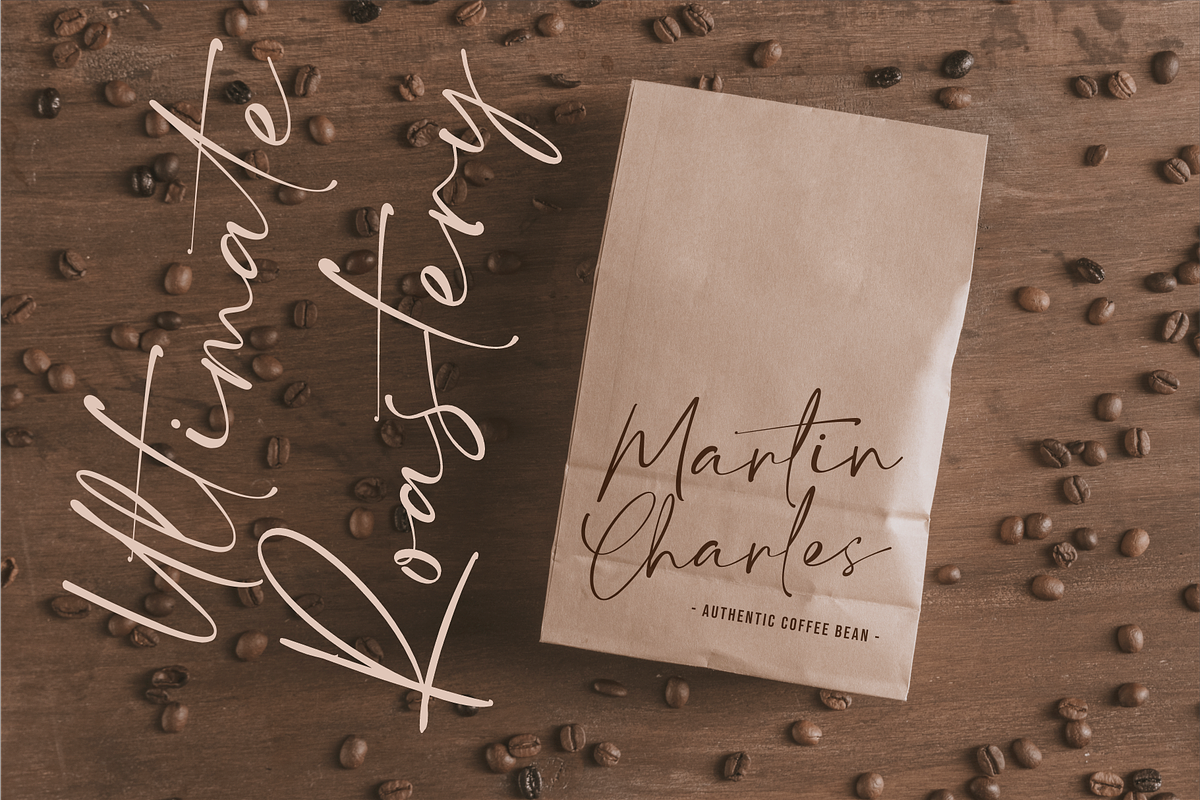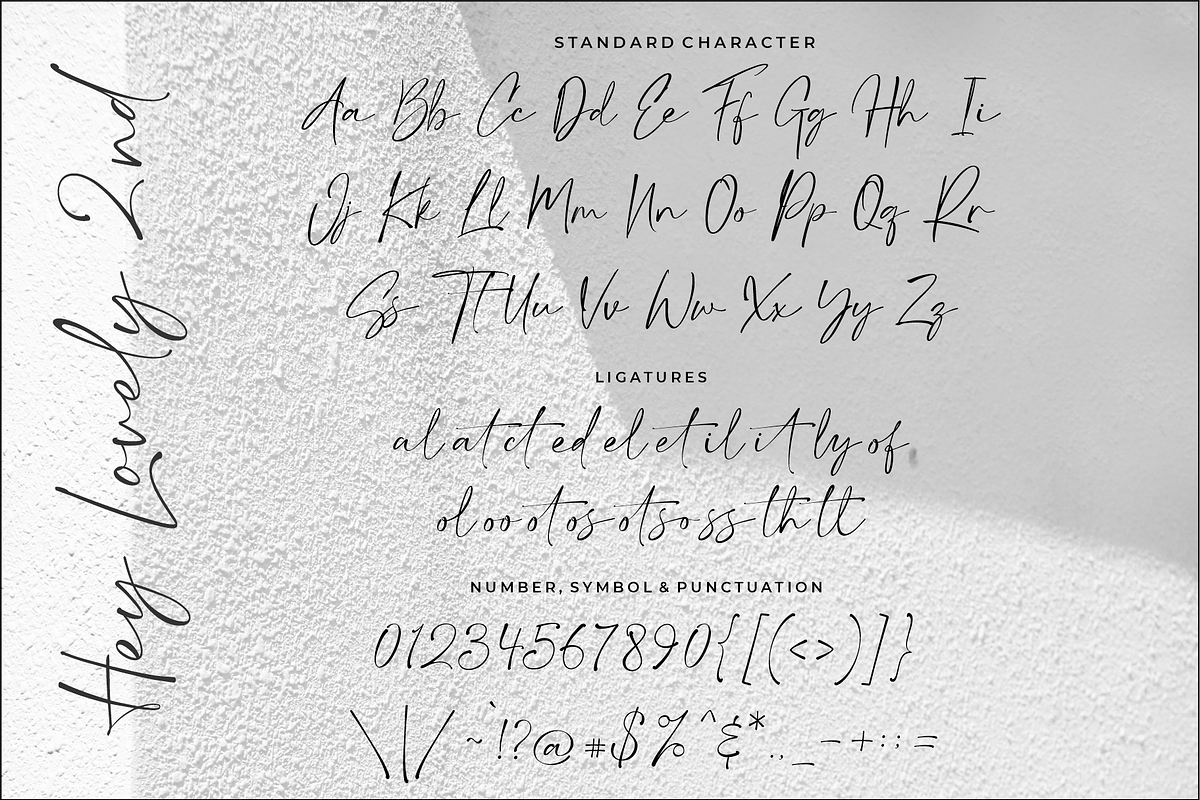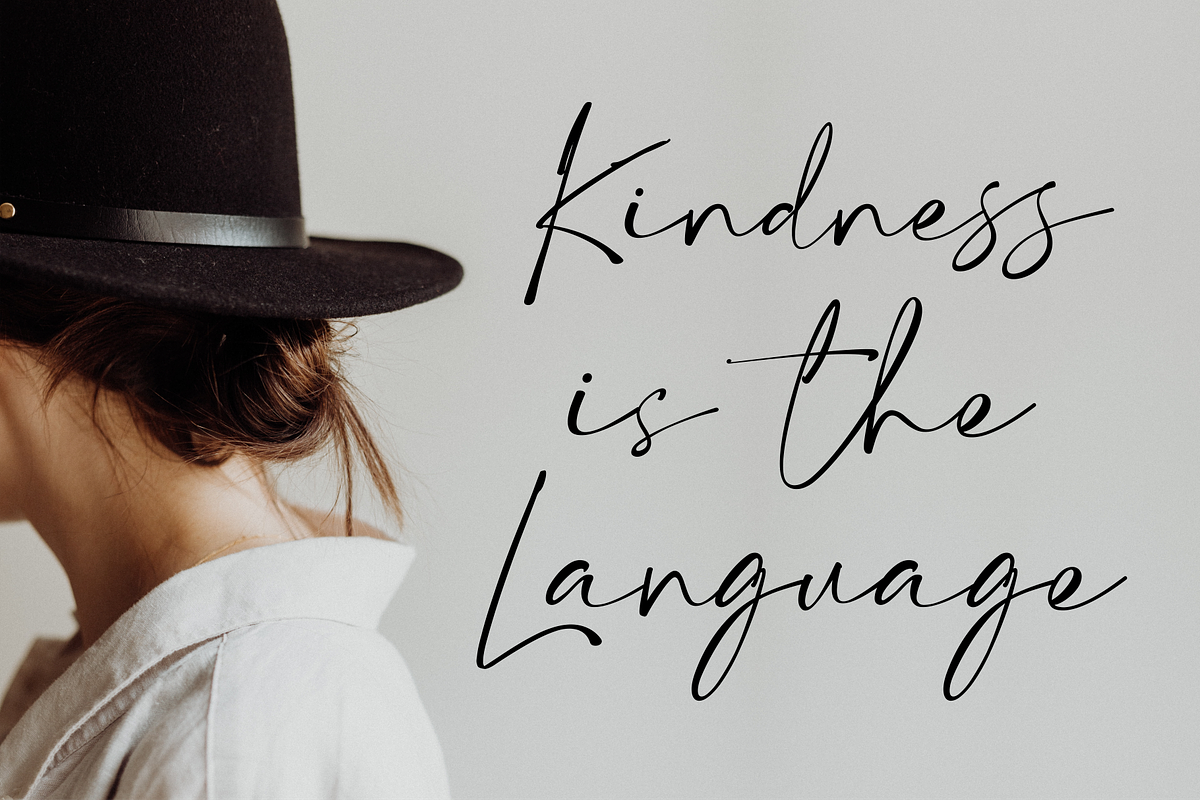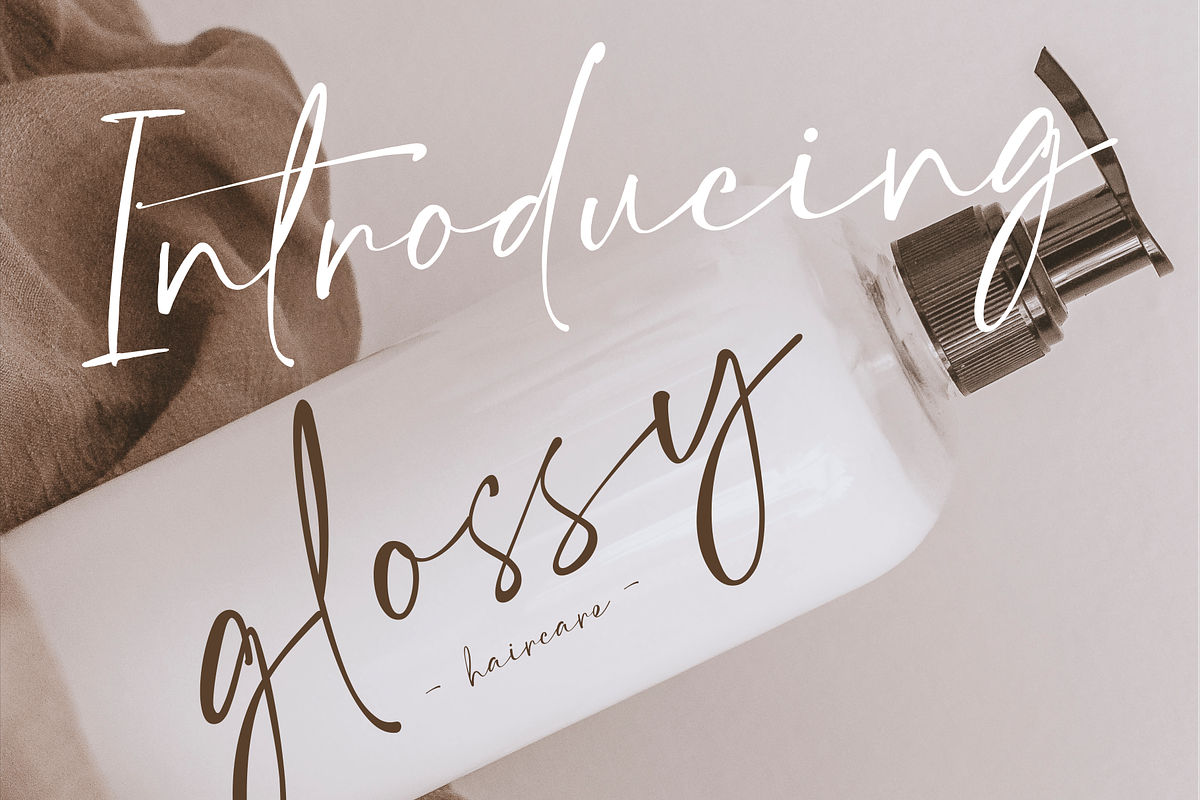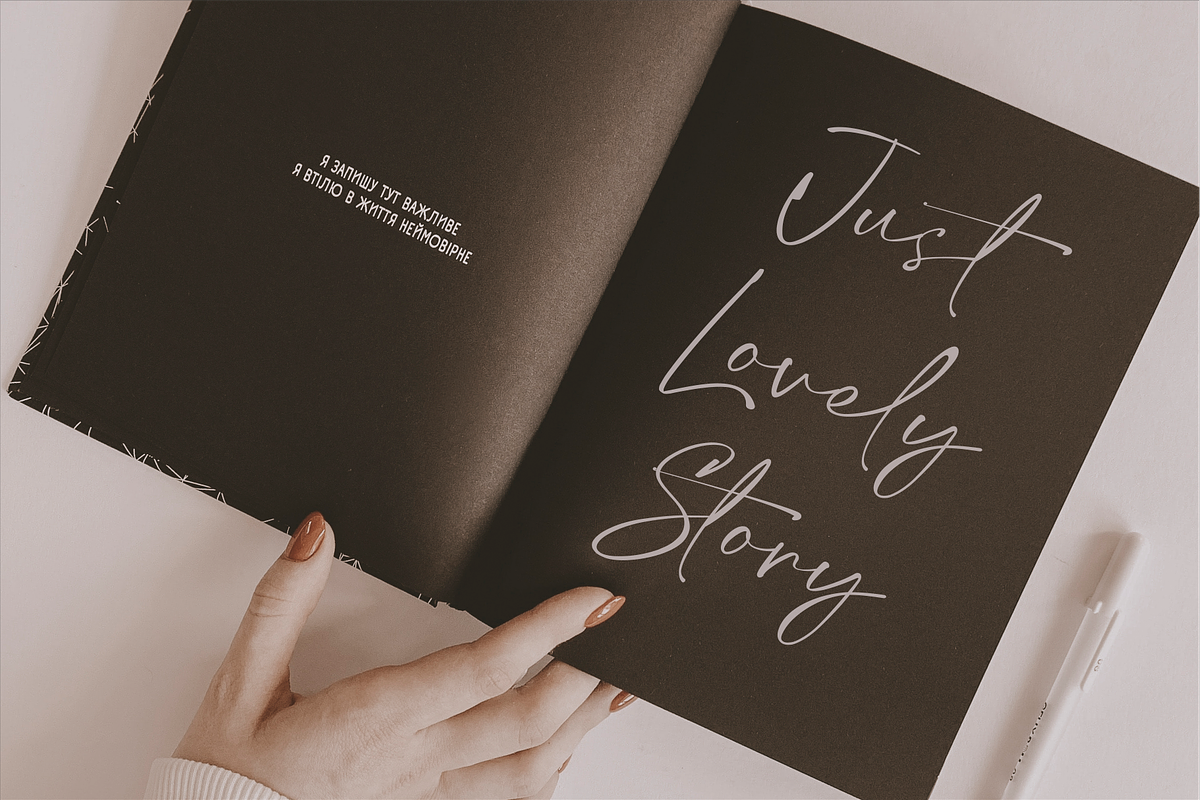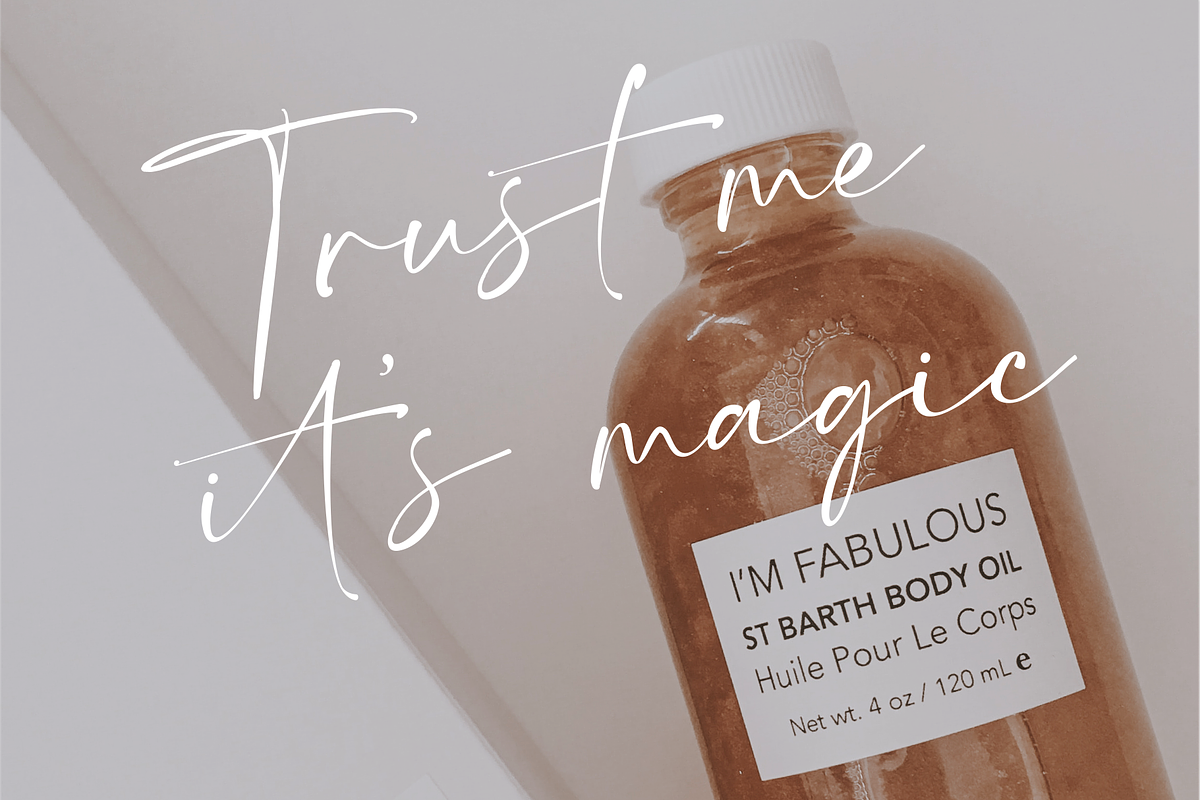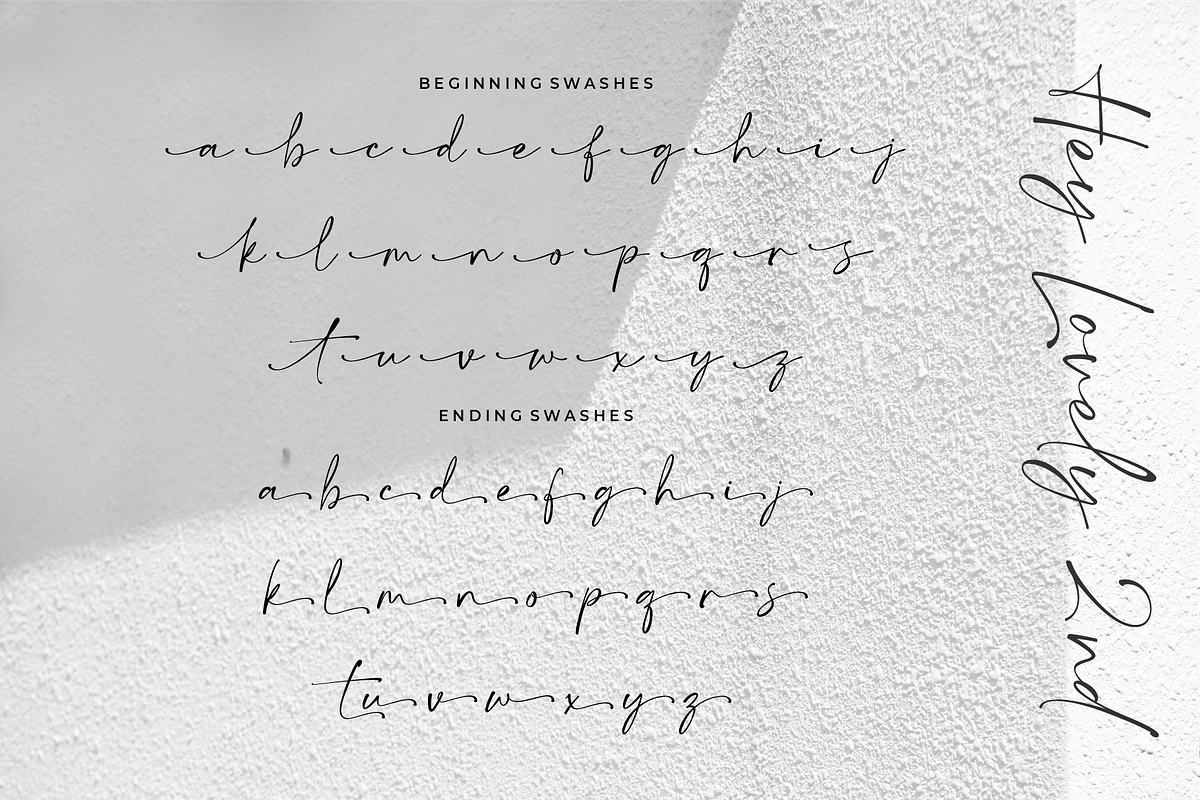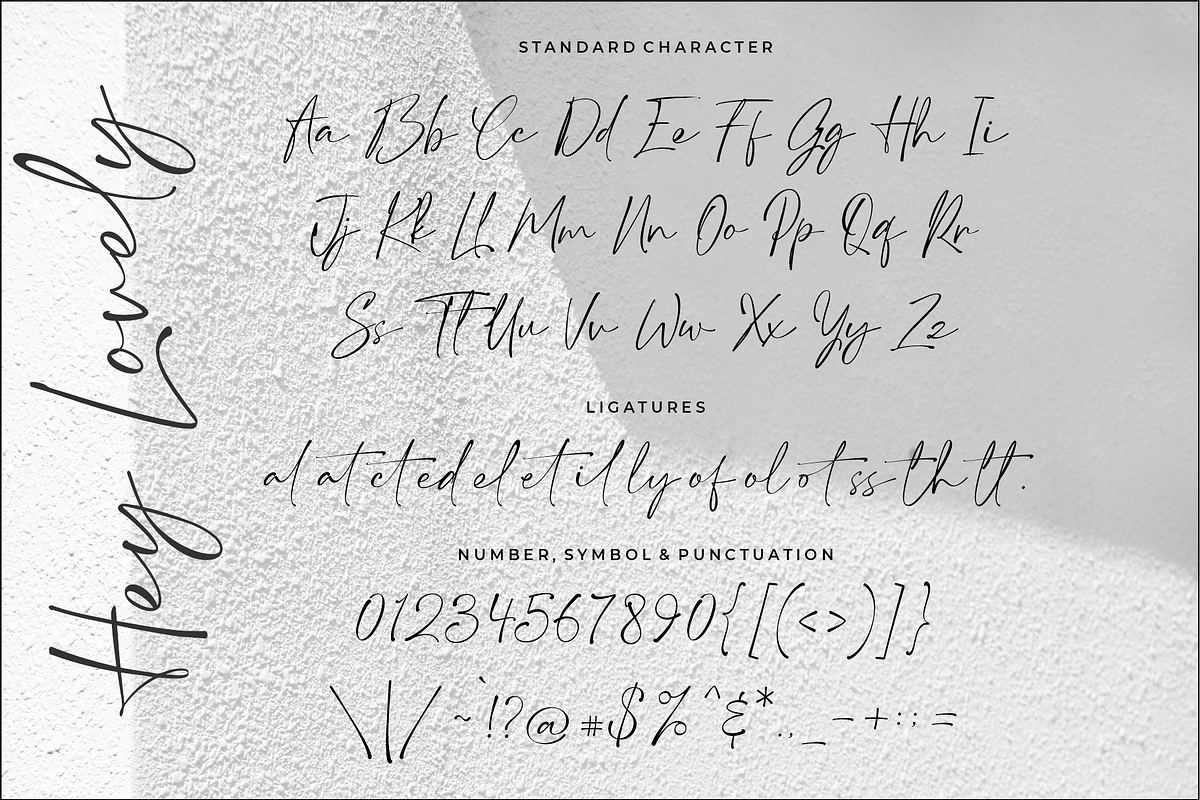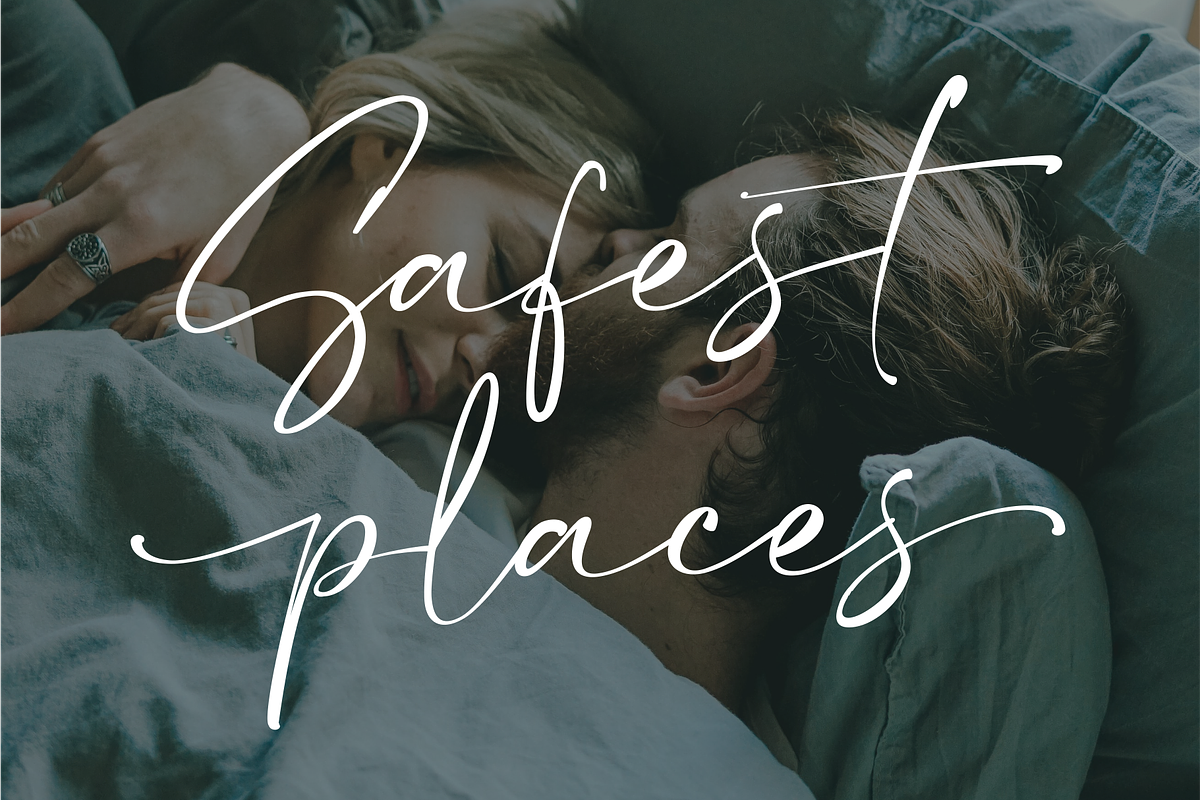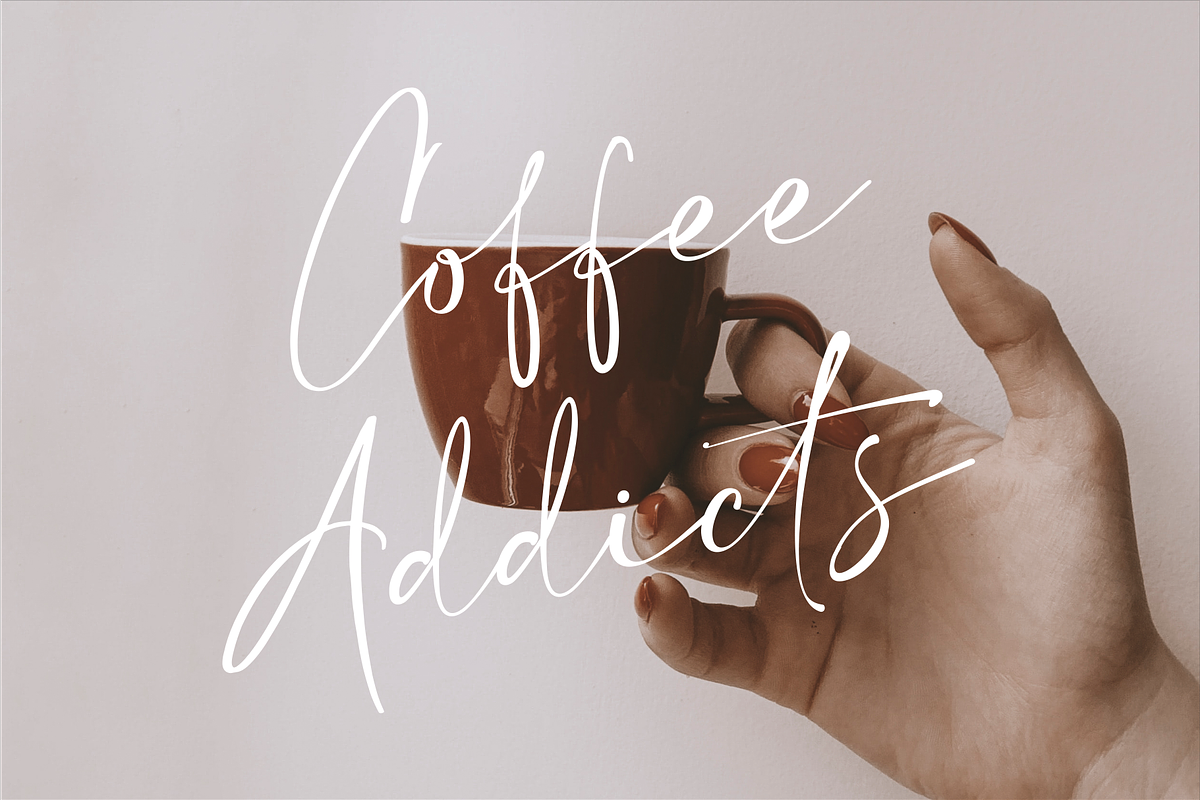
Hey Lovely - Chic Calligraphy
Hey Lovely! Just add ++ before or after your typing to access the swashes.
Hey Lovely! A modern calligraphy of wet ink with quick strokes. It's perfect for bringing a casual style to your design projects.
Hey Lovely Fonts has ligatures & alternative characters. This Font is great for logo, printed quotes, badge, insignia, packaging, headline, poster, t-shirt/apparel, greeting card, and wedding invitation, & etc.